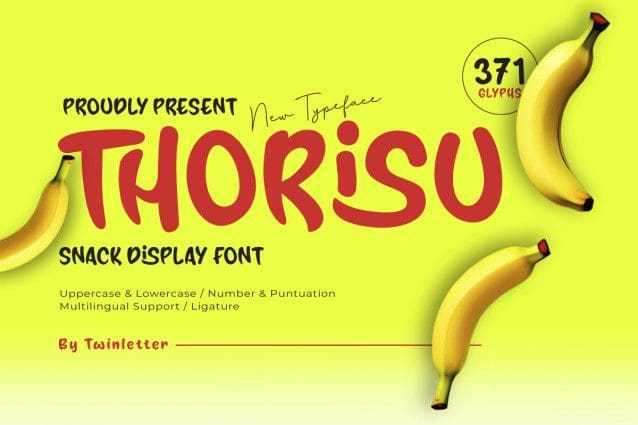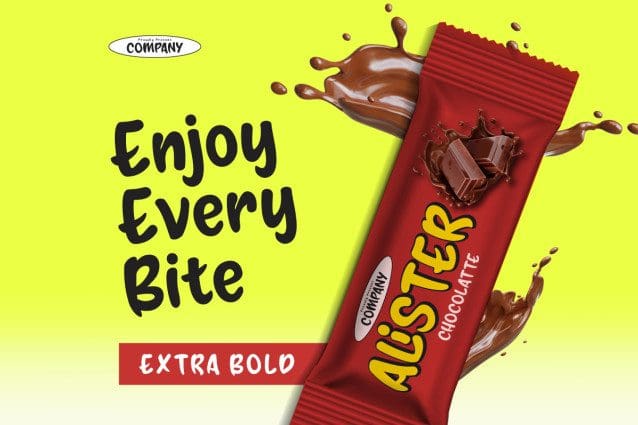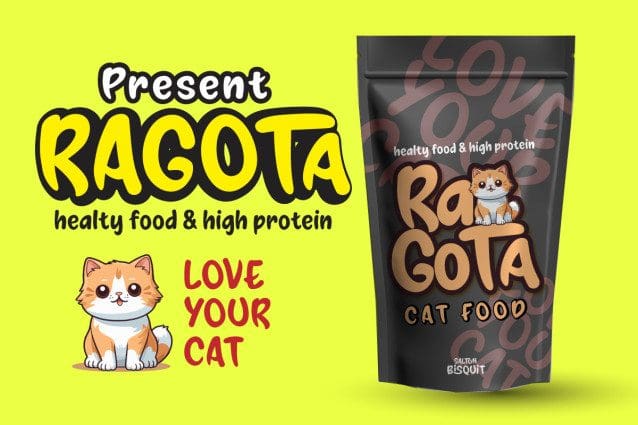
Thorisu Snack Display Font
Thorisu Snack Display Font is a display font specifically designed to promote snack or snack products. This font has a strong, bold, and curved character, giving it a fun, witty, and cheerful impression. The design is inspired by the shape of a banana, making this font very suitable for branding or packaging related to fruit or healthy food.
Thorisu Snack Display Font is available in uppercase, lowercase, numbers, punctuation, and supports multilingualism and ligatures, giving it the flexibility to be used for a variety of design needs. Its relaxed yet eye-catching style makes it stand out on labels, advertisements, or snack promotions. The cheerful combination of red and yellow and the banana illustration make the whole design look appetizing and adorable. Thorisu Snack Display Font is the right font choice for creating fresh and attractive branding for snack products that want to convey a healthy and fun impression.